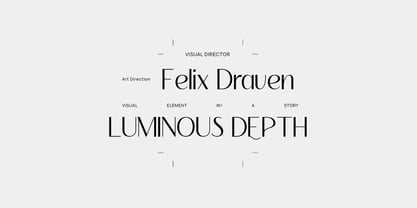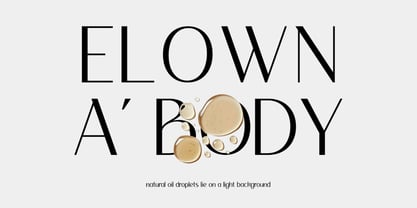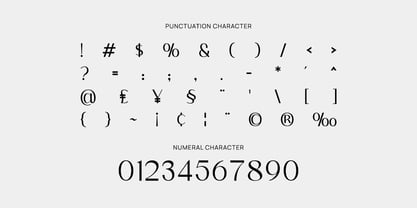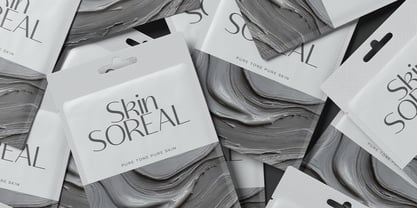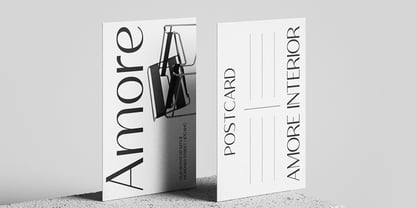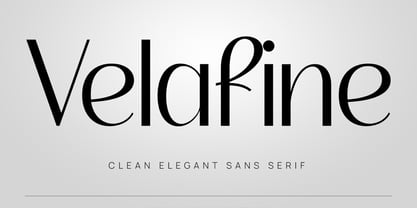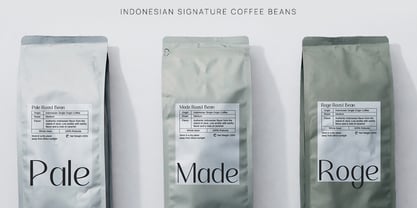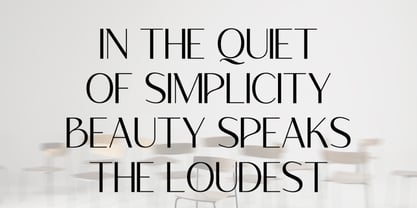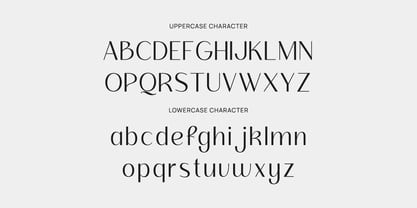
Velafine
by Rasio Studio
The Velafine Font Family was designed by Fajar Indra and published by Rasio Studio. Velafine contains 1 styles. More about this family
Velafine showcases a refined elegant sans serif typeface with high contrast strokes, graceful curves, and sophisticated modern letterforms crafted for premium visual identity. The font includes uppercase, lowercase, numerals, punctuation, multilingual support, and stylistic character details suited for editorial and luxury branding compositions.
Relevance and Use Cases is perfect for luxury branding, editorial layouts, fashion magazines, beauty packaging, logo identities, wedding stationery, boutique branding, premium marketing materials, product labels, social media branding, modern publishing, and sophisticated typography-driven design projects.